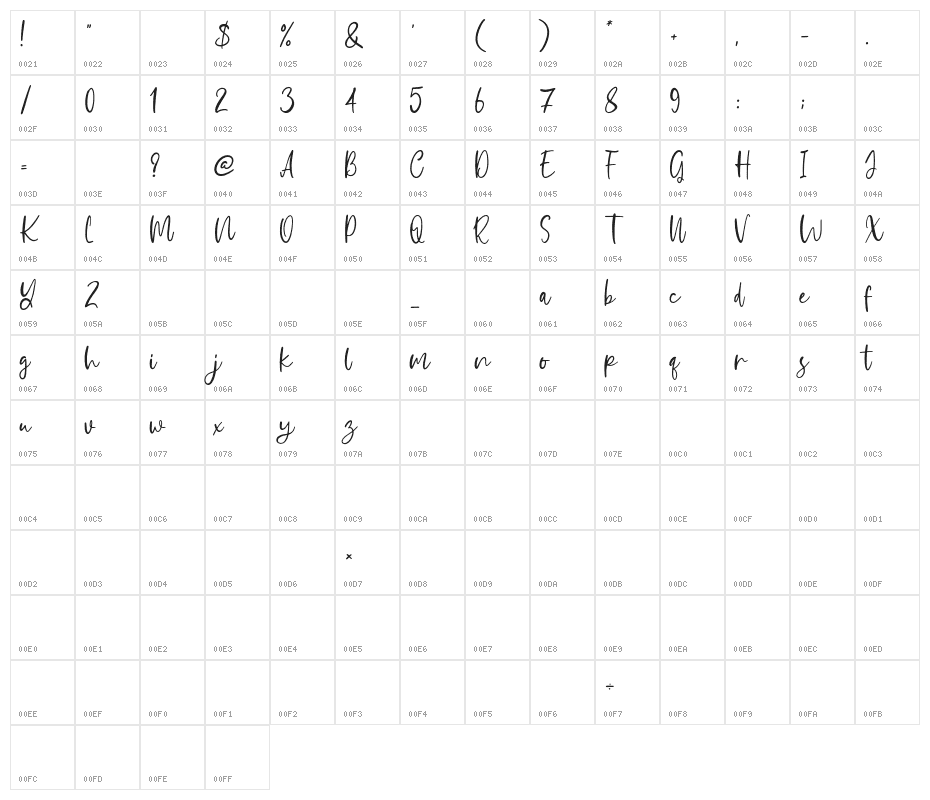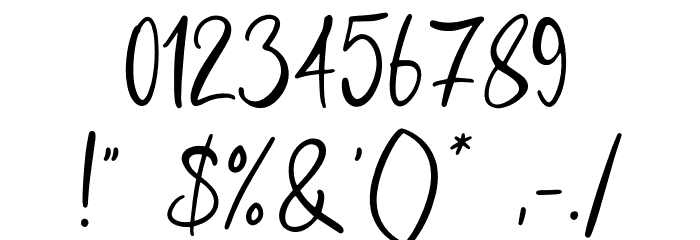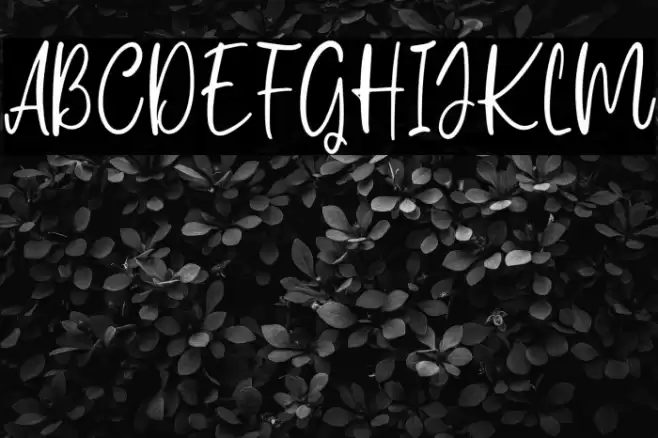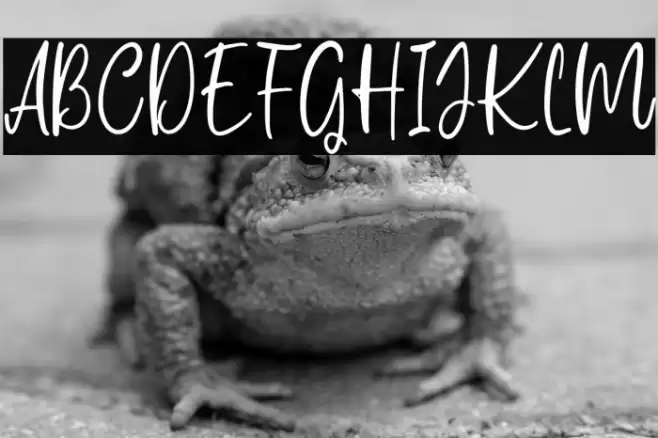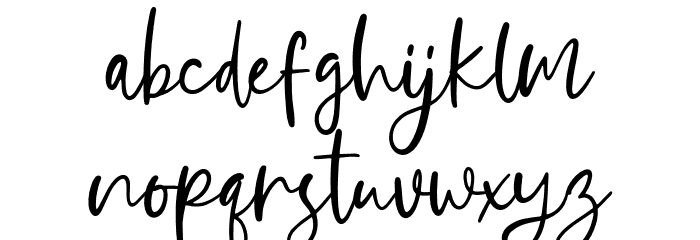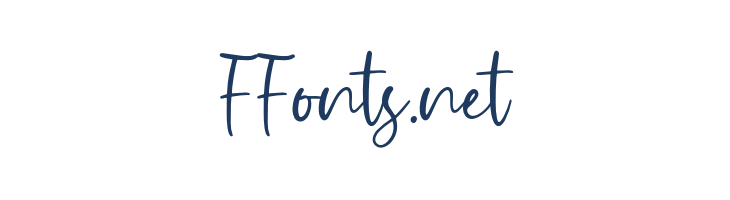
Carolina Smile Font
This font features a lively and playful handwritten style, characterized by its fluid and dynamic strokes. The letters are slightly slanted, adding a sense of motion and energy. The uppercase letters are bold and prominent, while the lowercase letters maintain a consistent flow with elegant loops and curves. The numerals are clear and legible, matching the overall whimsical aesthetic. Special characters are creatively integrated, maintaining the font's cohesive look. This font exudes a friendly and approachable vibe, making it suitable for a variety of creative projects.
| Proposed Projects | Ideal for greeting cards, invitations, personal branding, social media graphics, and playful logos. |